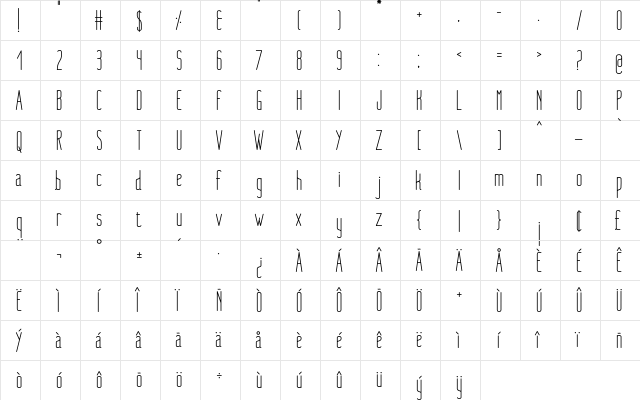
Nue Medium Regular
| Foundry | Julia Martinez Diana, Antipixel |
| Designer | Julia Martinez Diana |
Design Context for Nue Medium Typeface
Nue Medium takes a measured approach to typography — its balanced proportions and neutral character make it a reliable workhorse for both digital and print work.